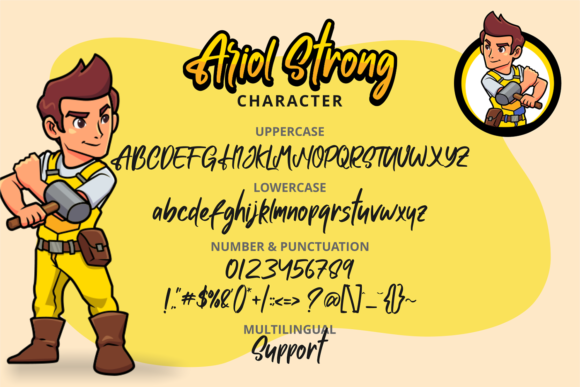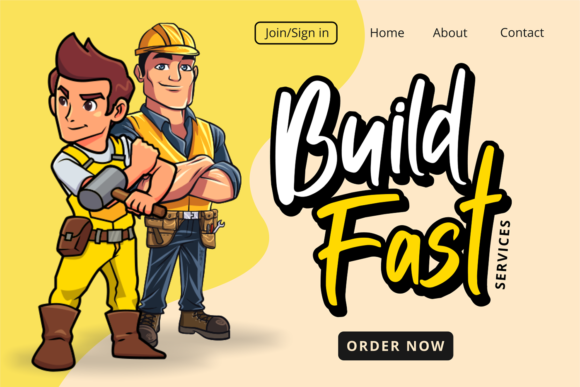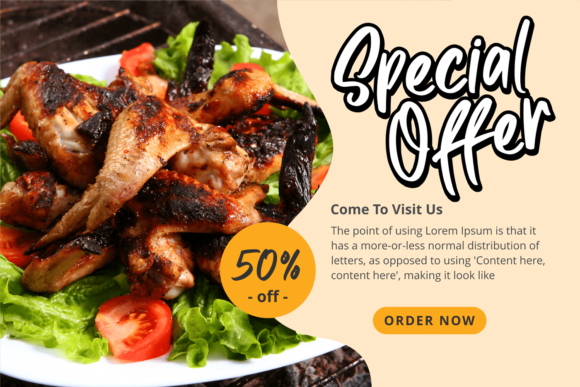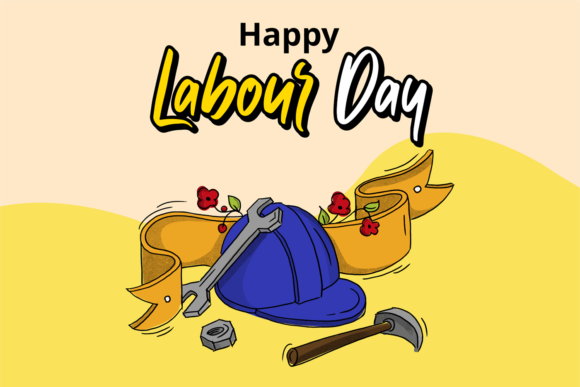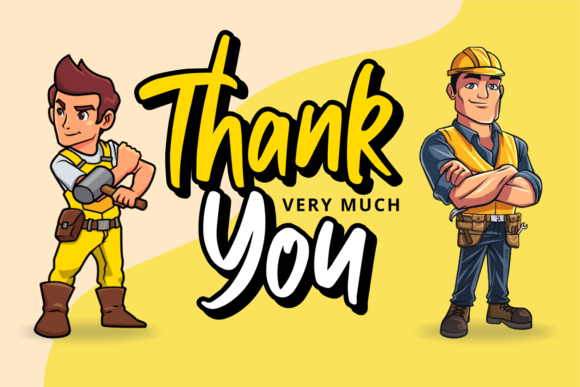
Ariol Strong Font
About Ariol Strong Font
Ariol Strong is a casual and neat lettered handwritten font. Get creative with its incredibly versatile style and use it to create gorgeous wedding invitations, beautiful stationary art, eye-catching social media posts, and much more!